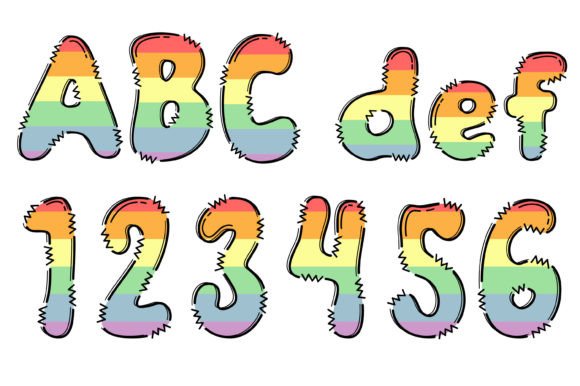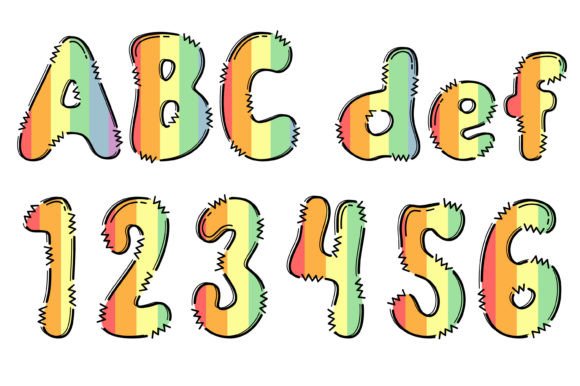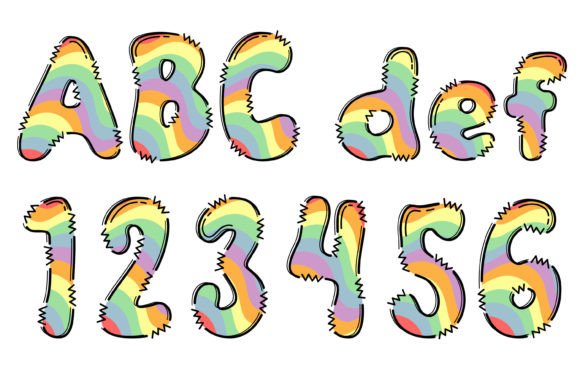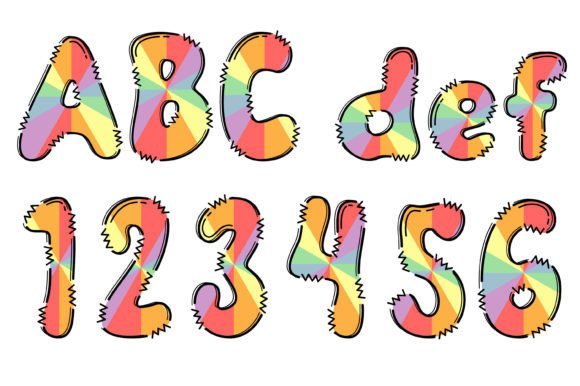
Introduction to Pastel Rainbow Bundle Font Font
Fonts play a crucial role in design, and the Pastel Rainbow Bundle Font font is a typeface that brings both character and versatility to any project. Whether you’re working on a branding project, a website, or a print design, the Pastel Rainbow Bundle Font font offers a unique style that can elevate your work.
Pastel Rainbow is a delightful color font that brings a burst of soft and soothing hues to your designs.
This font features a spectrum of pastel colors, like gentle pinks, mints, lavenders, and baby blues, adding a touch of whimsy and playfulness to your text Perfect for creating eye-catching and cheerful designs, Pastel Rainbow is sure to bring a smile to your audienceβs faces.
Key Features of Pastel Rainbow Bundle Font Font
Why Choose Pastel Rainbow Bundle Font Font?
The Pastel Rainbow Bundle Font font is more than just a typeface β it’s a design tool that helps you communicate your message with style and clarity. Its unique character set and versatile design make it suitable for a wide range of applications, from elegant invitations to bold headlines.
With its carefully crafted letterforms and balanced proportions, the Pastel Rainbow Bundle Font font ensures readability and visual appeal across all mediums.
What makes Pastel Rainbow Bundle Font font special?
The Pastel Rainbow Bundle Font font stands out with its unique design, exceptional readability, and versatility across various design applications.